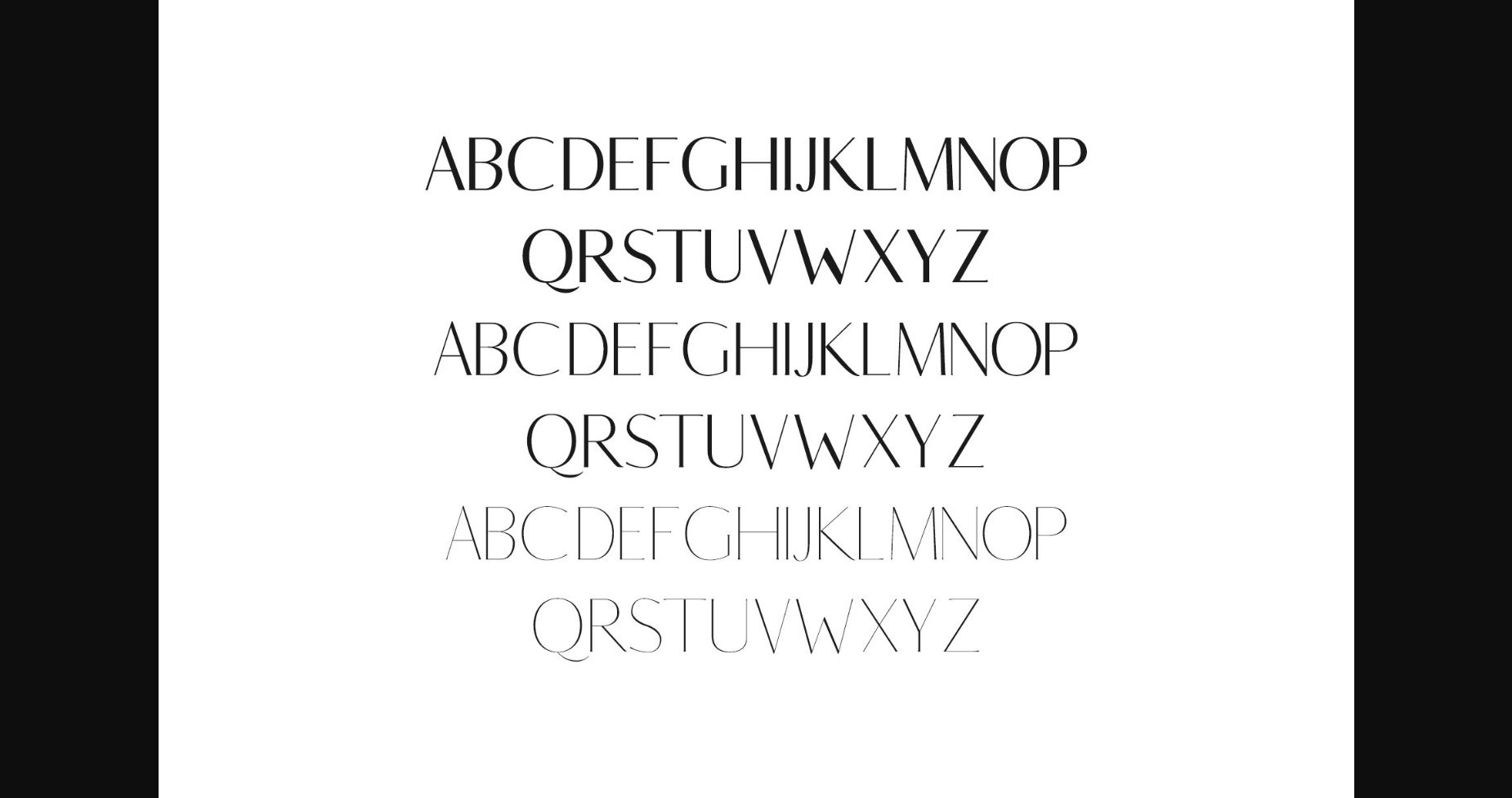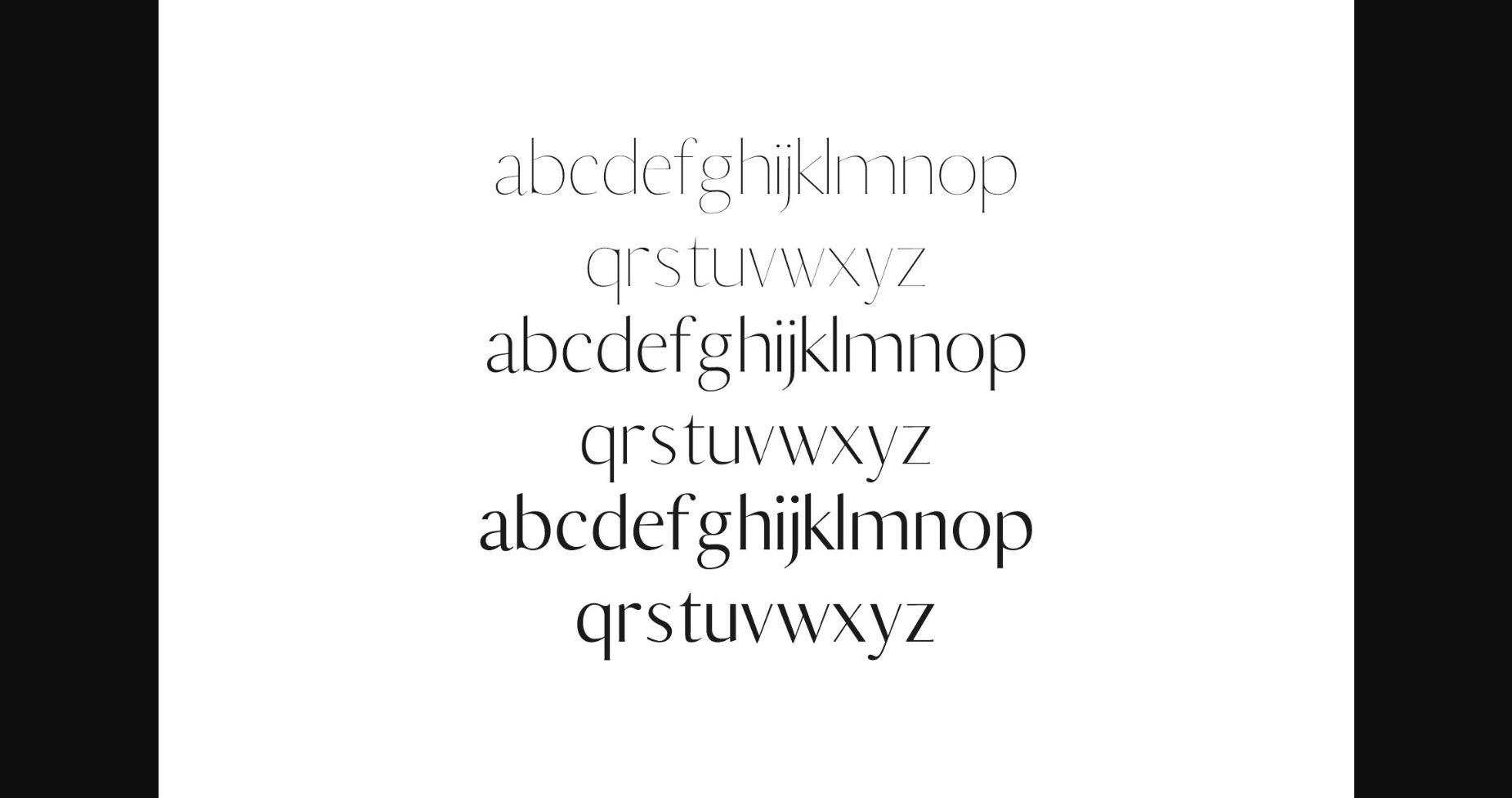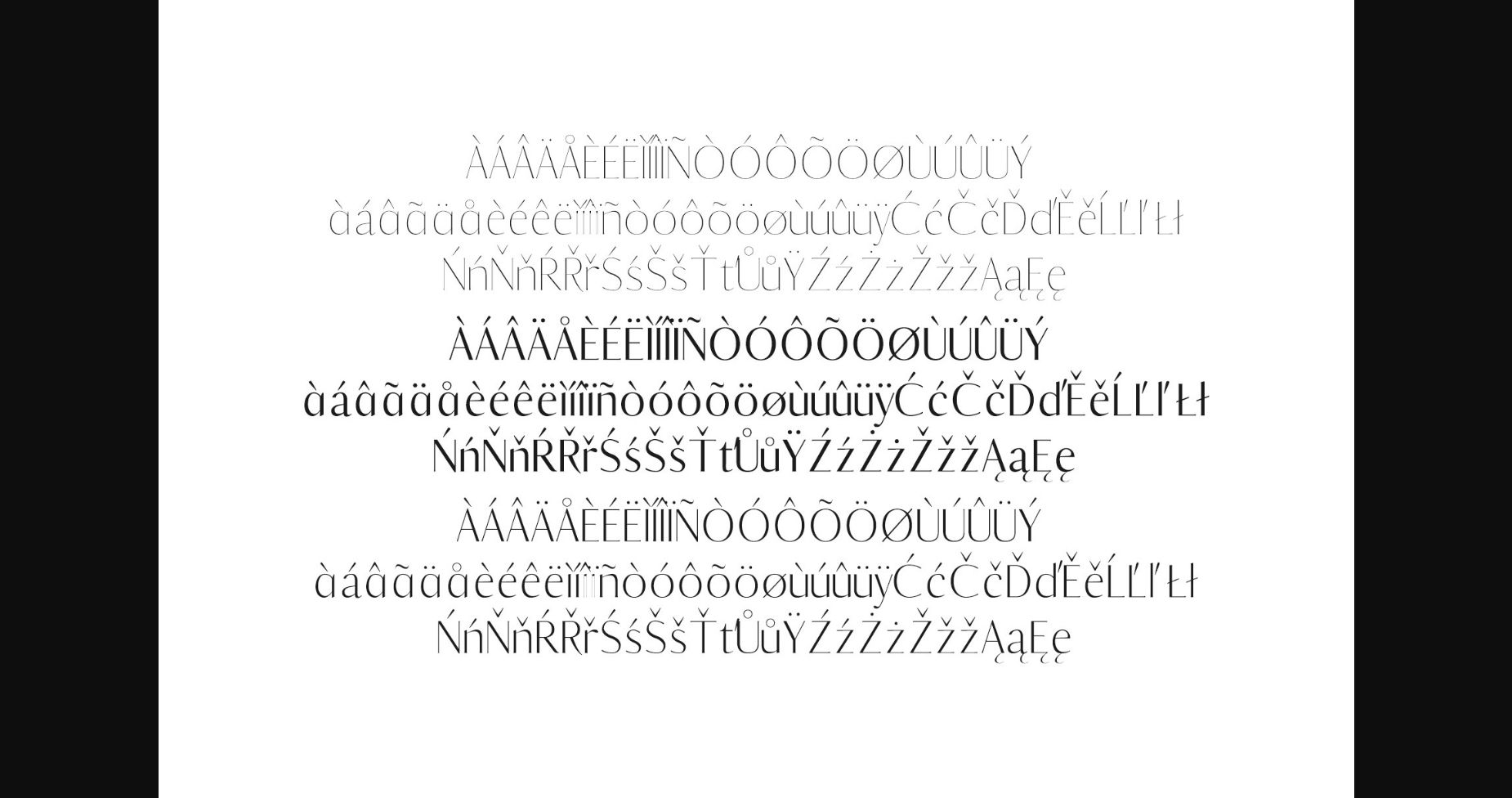
About Berton Family Font
Berton is a classy and timeless sans serif font family. Its minimalistic and neat characters are a great choice for headlines, magazines, small text, stationery, business cards, or other projects that need to stand out.